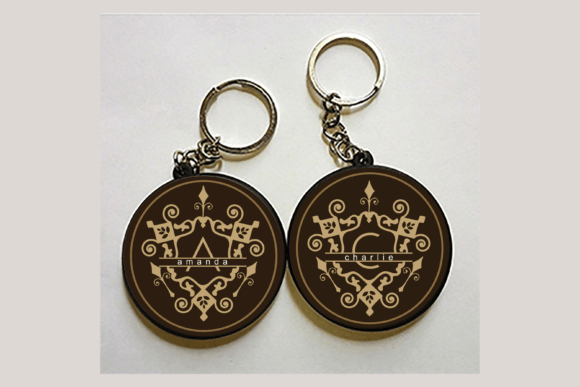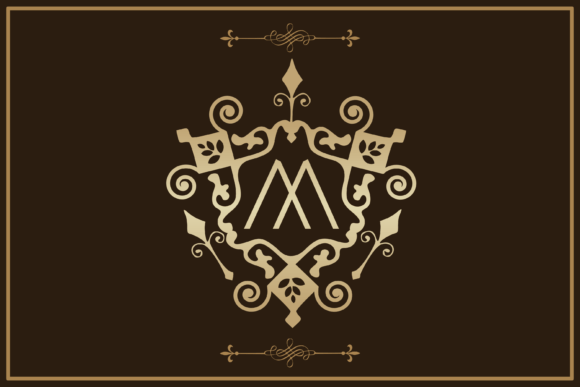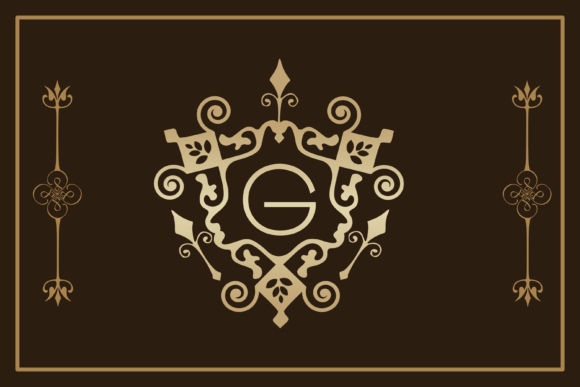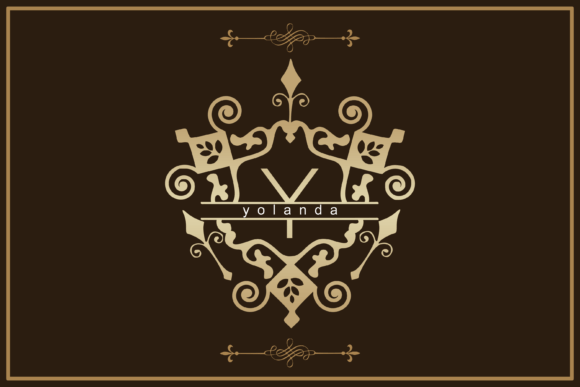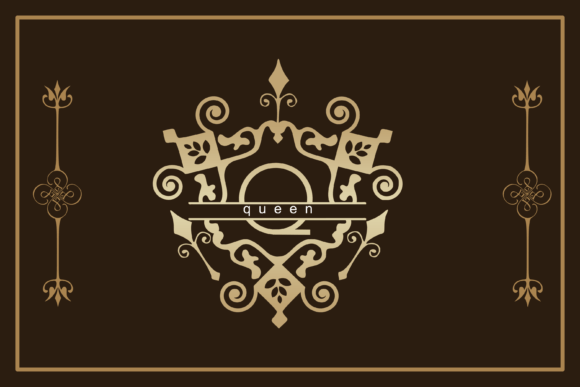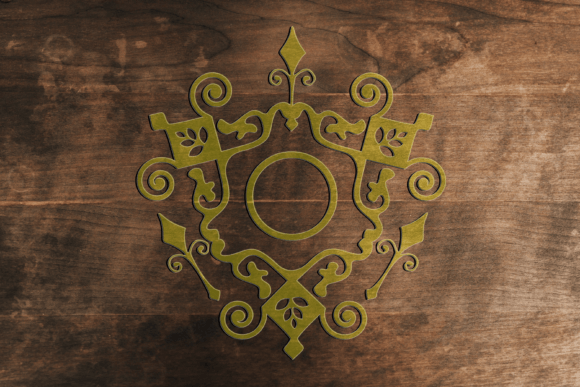
Introduction to Royals Monogram Font
Royals Monogram is a charming decorative font.
Fall in love with its authentic feel and use it to create gorgeous invitations, beautiful stationary art, eye-catching social media posts, and cute greeting cards .
Key Features of Royals Monogram Font
Why Choose Royals Monogram Font?
Royals Monogram Font offers exceptional quality and versatility, making it a valuable addition to your design toolkit. Whether you’re creating for personal projects or commercial use, Royals Monogram Font delivers professional results.